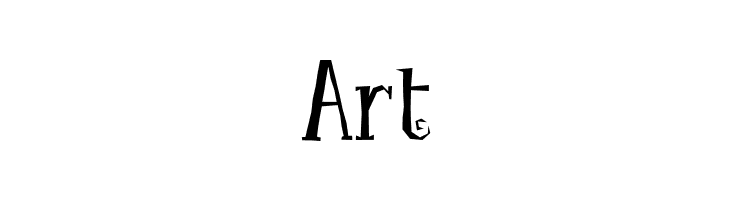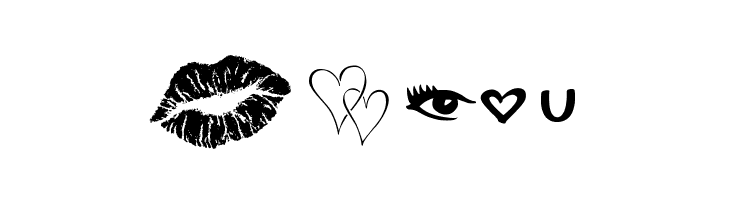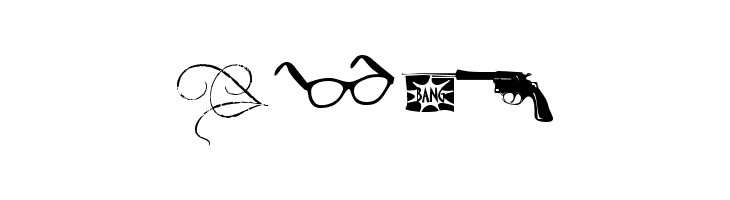
A bold, playful font with dynamic and whimsical characters.
Eclectic hand-drawn dingbat font with playful icons and symbols.
Eclectic hand-drawn dingbat icon set with playful motifs.
A graceful script font with fluid, connected strokes and elegant curves.
A dotted, cursive-style font ideal for educational purposes.
A playful dashed cursive font ideal for handwriting education.
A cursive, handwritten font with elegant, flowing lines.
A playful, quirky font with uneven strokes and unique design elements.
A romantic collection of love-themed icons and symbols with elegant and detailed designs.
A decorative font featuring romantic and whimsical symbols.